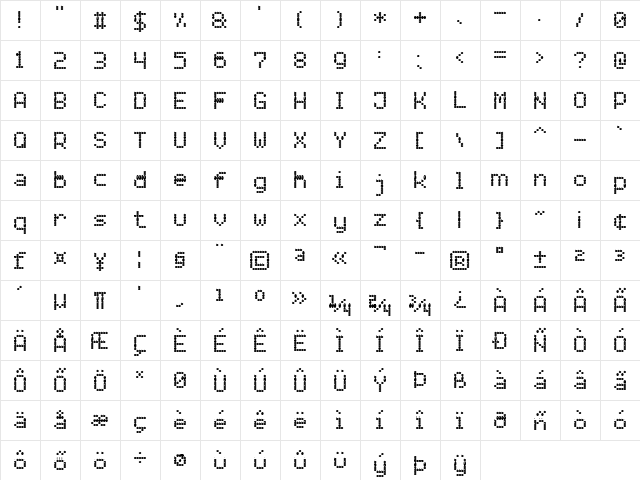
Light LED Board-7 Regular
| Foundry | Style-7 |
| Designer | Sizenko Alexander |
Design Context for Light LED Board-7 Typeface
Light LED Board-7 takes a measured approach to typography — its balanced proportions and neutral character make it a reliable workhorse for both digital and print work. Its slender proportions lend an understated elegance to any composition.